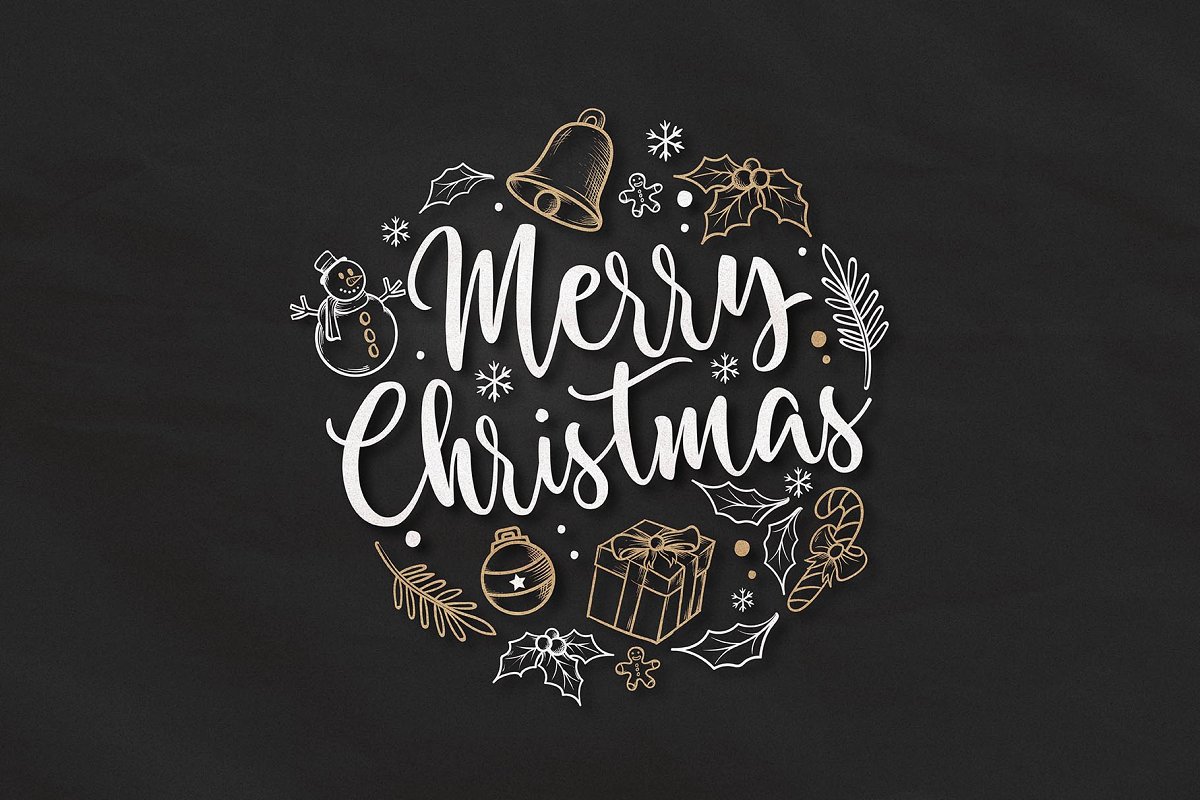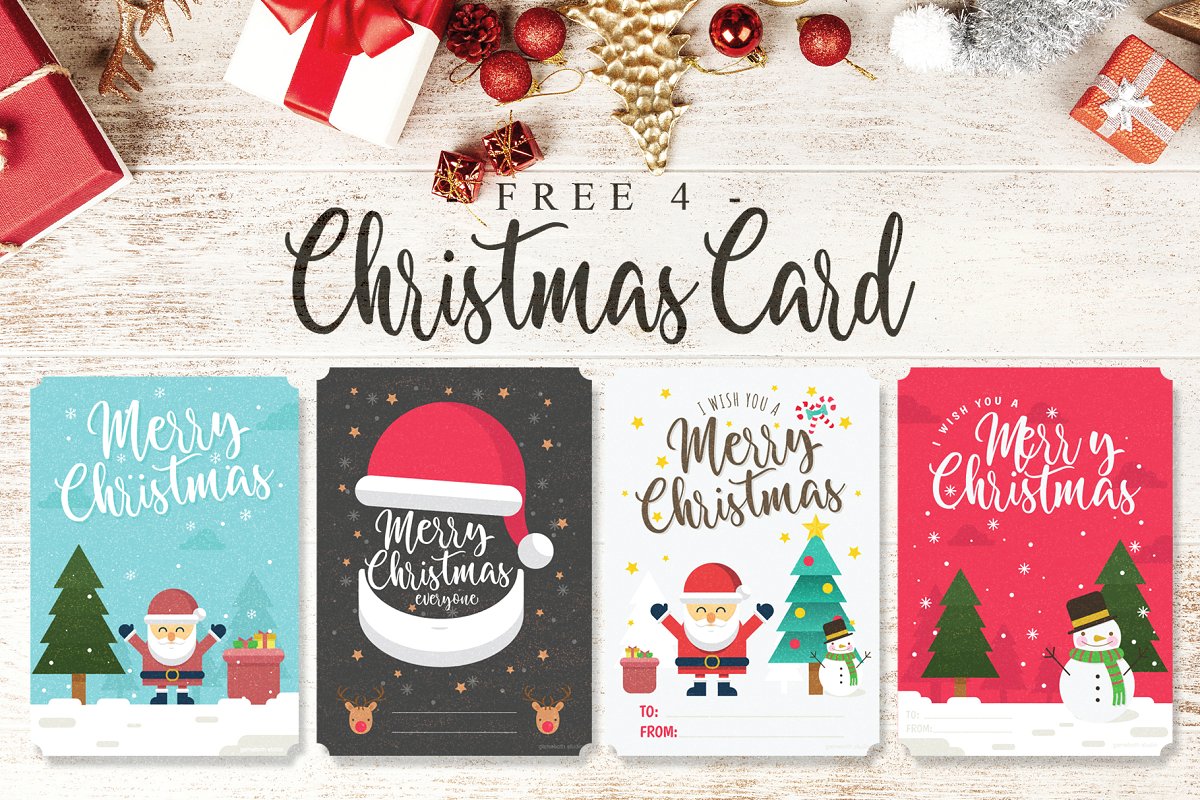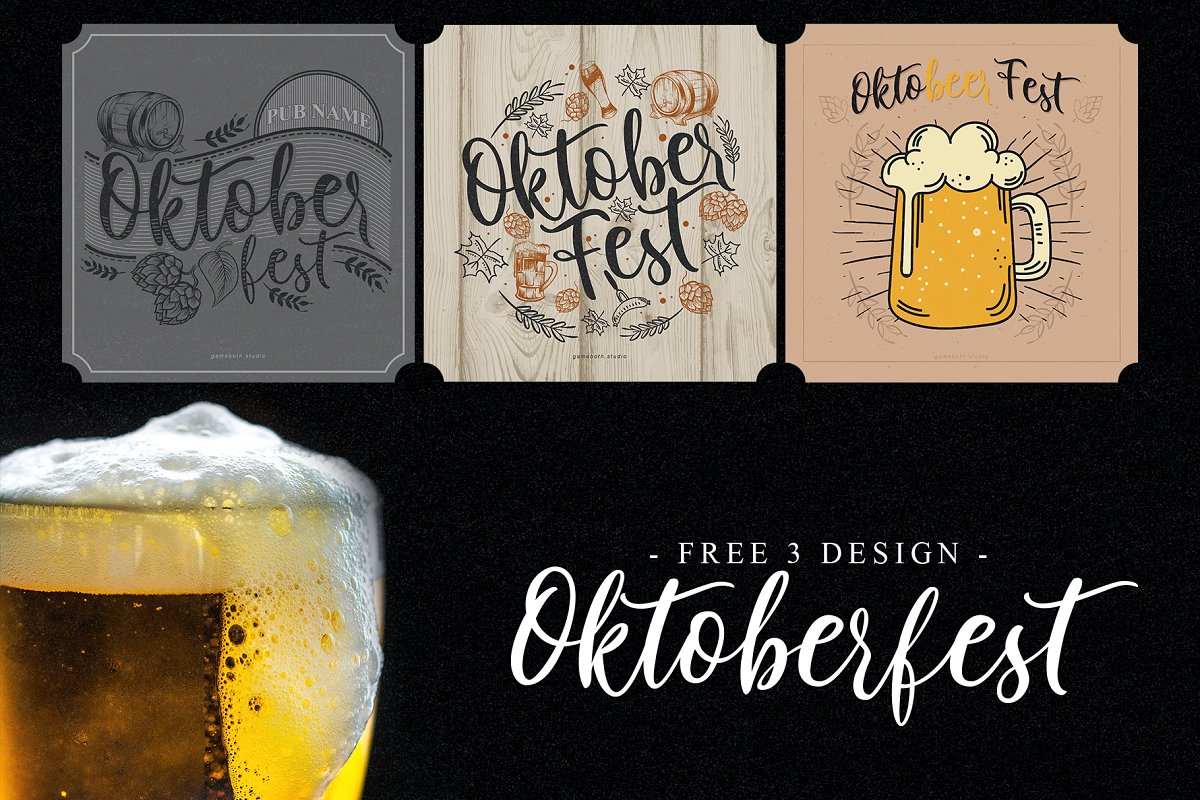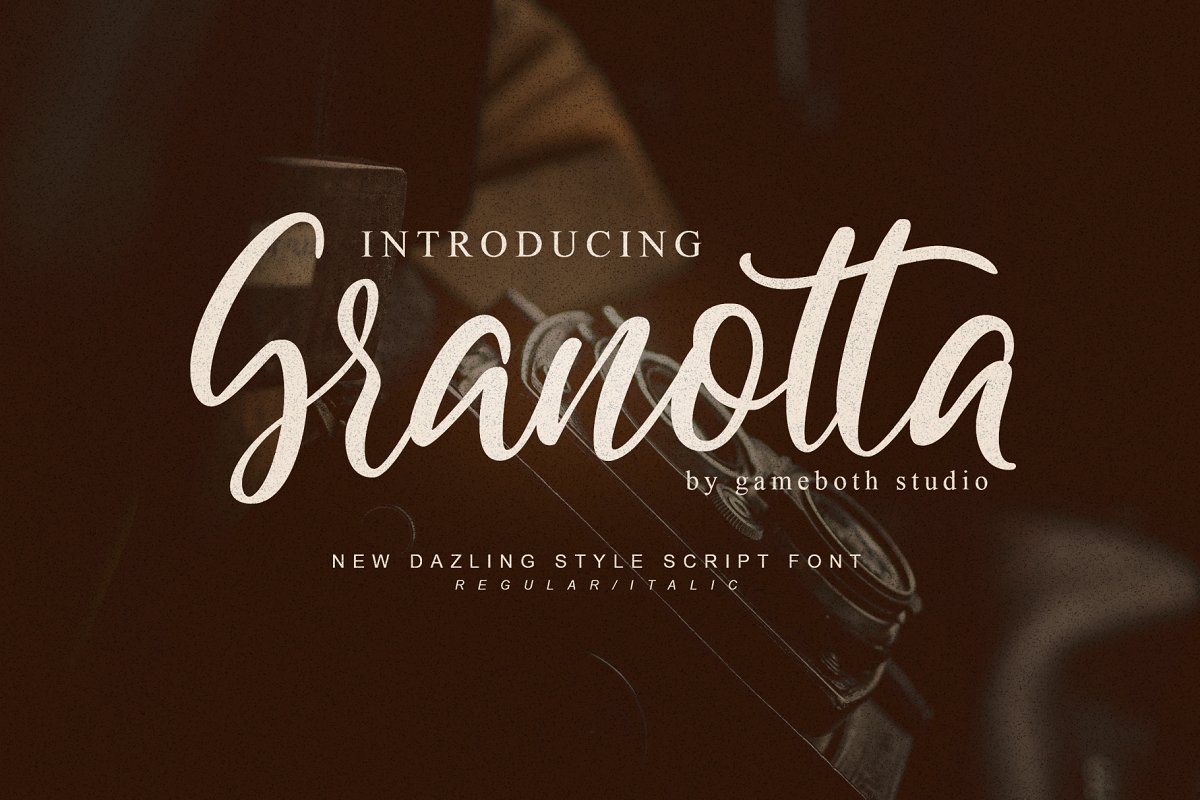
Granotta Script Font
Hi designer. A new script with awesome, endless possibilities. A perfect addition to the professional designers font. Introducing Granotta Font. Granotta is very best choice fonts for : Wedding Invitation, branding, web content, quotes, Posters, Logos, Print Ads, Digital Ads, Promotion Product etc.